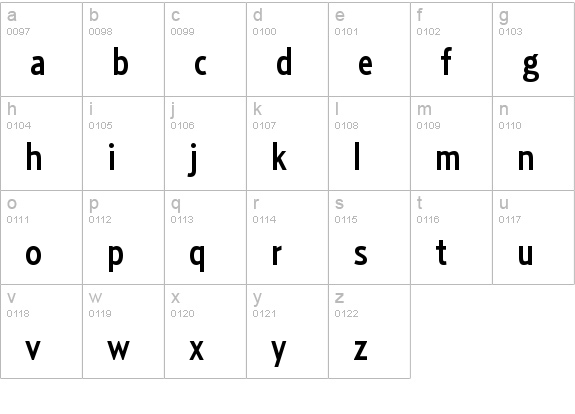
RelayCond-Medium Font Details
RelayCond-Medium is a balanced, medium-weight variant in the RelayCond typeface family \xE2\x80\x94 well suited to sub-headlines, navigation, and balanced editorial work.
RelayCond-Medium font is a stunning typeface that exudes elegance and modernity. Its sleek and slim design makes it perfect for various design projects, from branding and advertising to editorial and web design. With its condensed letterforms, this font allows you to fit more content in limited spaces without sacrificing legibility. The RelayCond-Medium font offers a harmonious balance between sophistication and readability. Its well-crafted letterforms possess a distinct personality, making your text stand out with a touch of refinement. This font is versatile and can be used for both headings and body text, adding a touch of class to any project. The best part? RelayCond-Medium font is available for free download at FontsMarket.com. This means that you can enhance your designs without breaking the bank. Whether you're a professional designer or a hobbyist, this font is the perfect addition to your library. With RelayCond-Medium font, you have the freedom to create visually stunning designs that leave a lasting impression. Its clean lines and modern aesthetic make it suitable for a wide range of applications, giving your projects a professional and polished look. Don't miss out on this opportunity to elevate your designs with RelayCond-Medium font. Download it for free at FontsMarket.com and unlock a world of possibilities. Embrace the elegance and versatility of this font and watch your designs come to life.